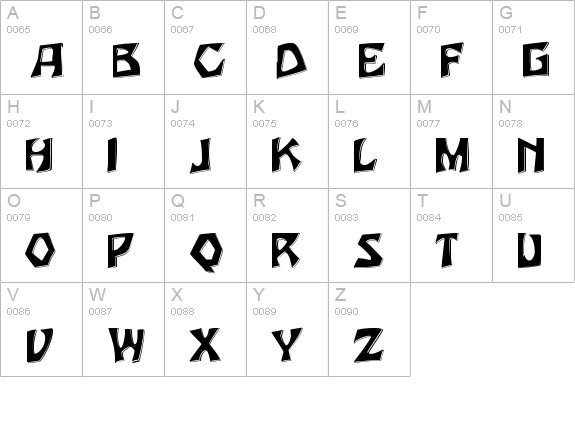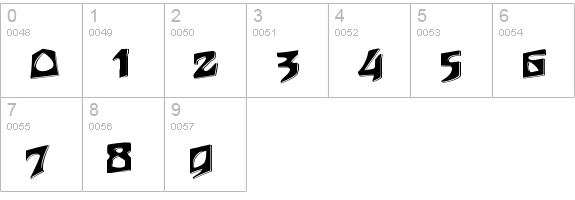
Houtsnee Shadow Font Details
Introducing Houtsnee Shadow font, a sleek and modern typeface that exudes sophistication and elegance. This unique font combines sharp lines with subtle shadow effects to create a striking visual impact. Perfect for adding a touch of glamour to your designs, Houtsnee Shadow font is versatile and eye-catching. What sets Houtsnee Shadow font apart is not only its stunning aesthetics, but also the fact that it is available for free download at FontsMarket.com. Now you can elevate your projects with this premium font without having to worry about breaking the bank. Whether you're designing a logo, poster, website, or any other creative project, Houtsnee Shadow font is sure to make a lasting impression. Download it today and let your creativity shine!